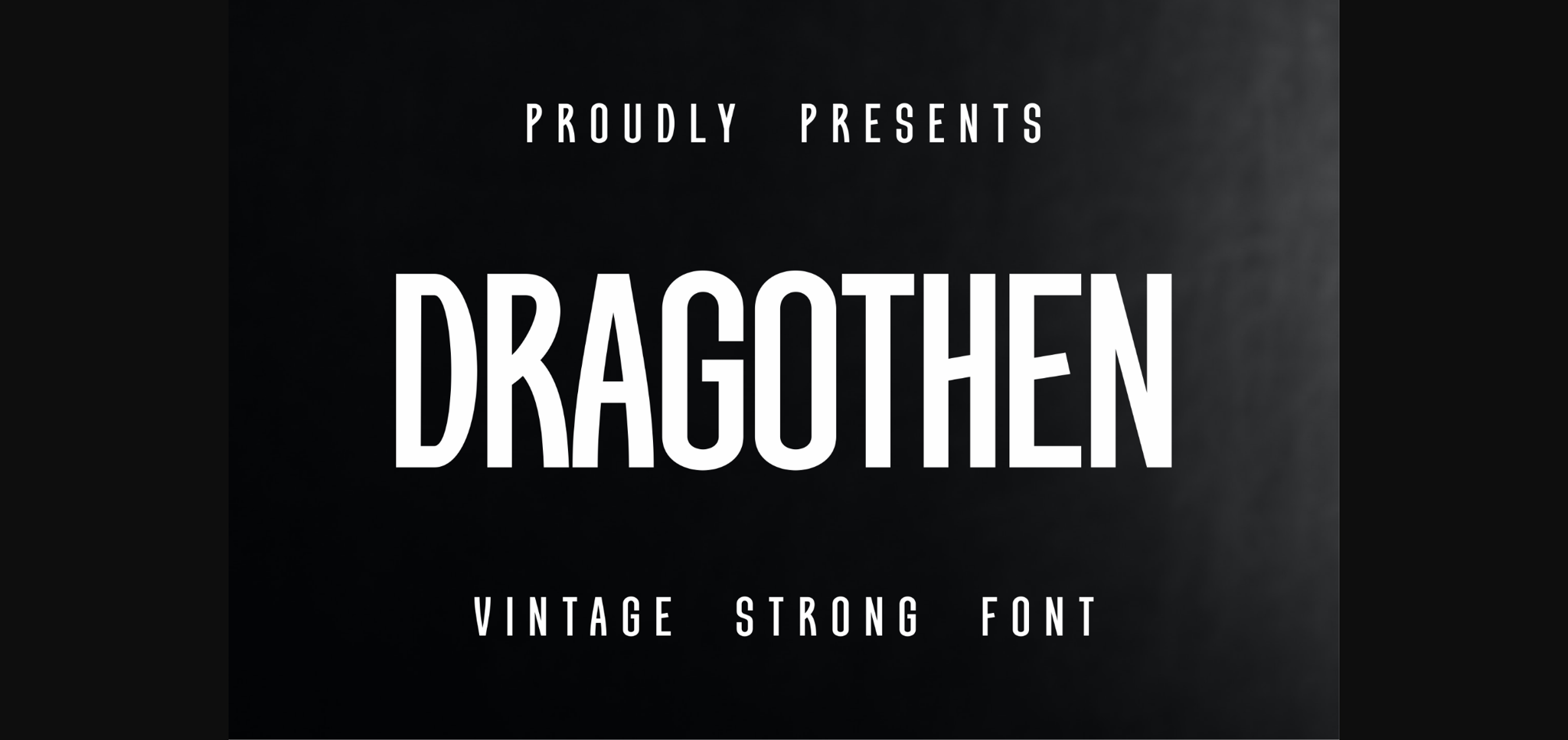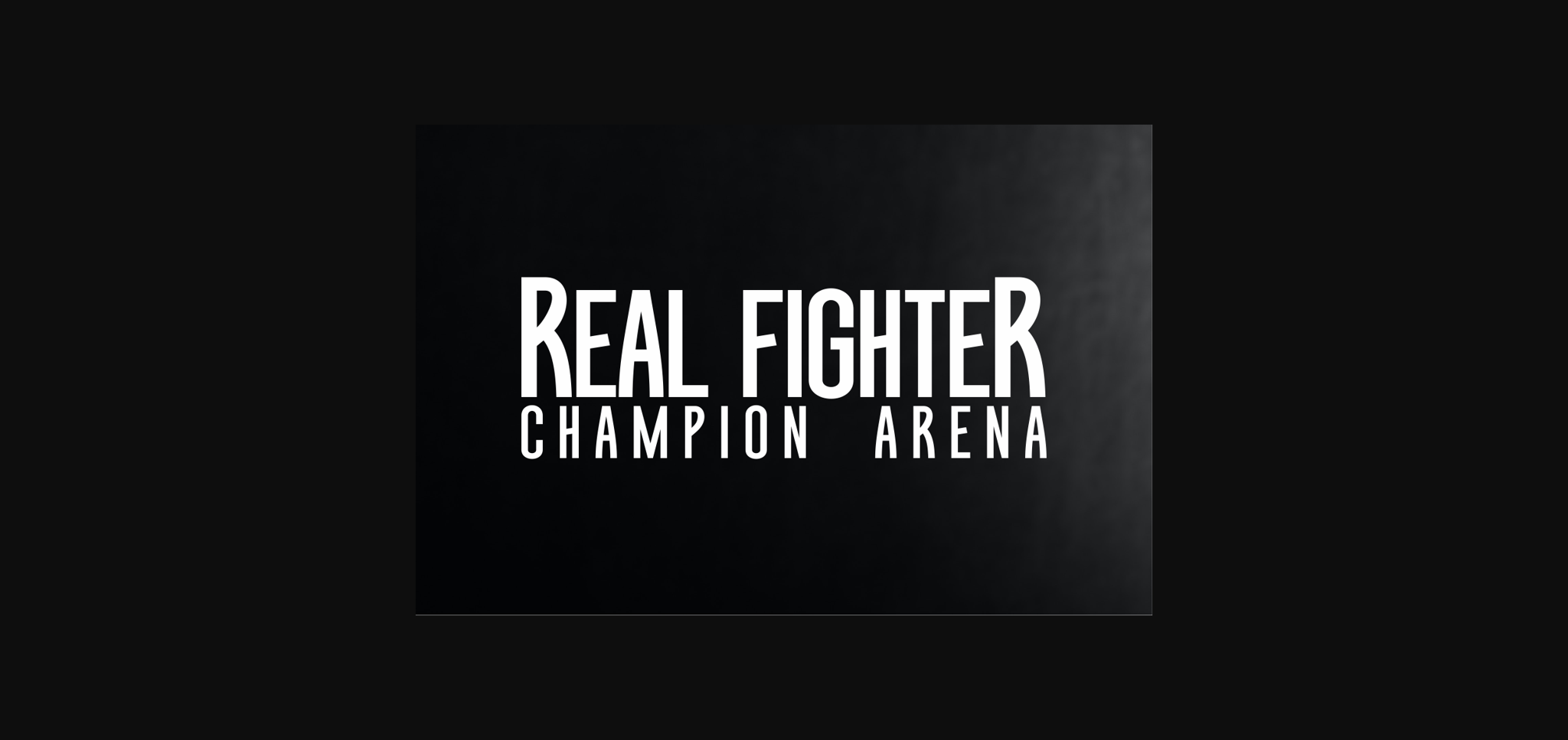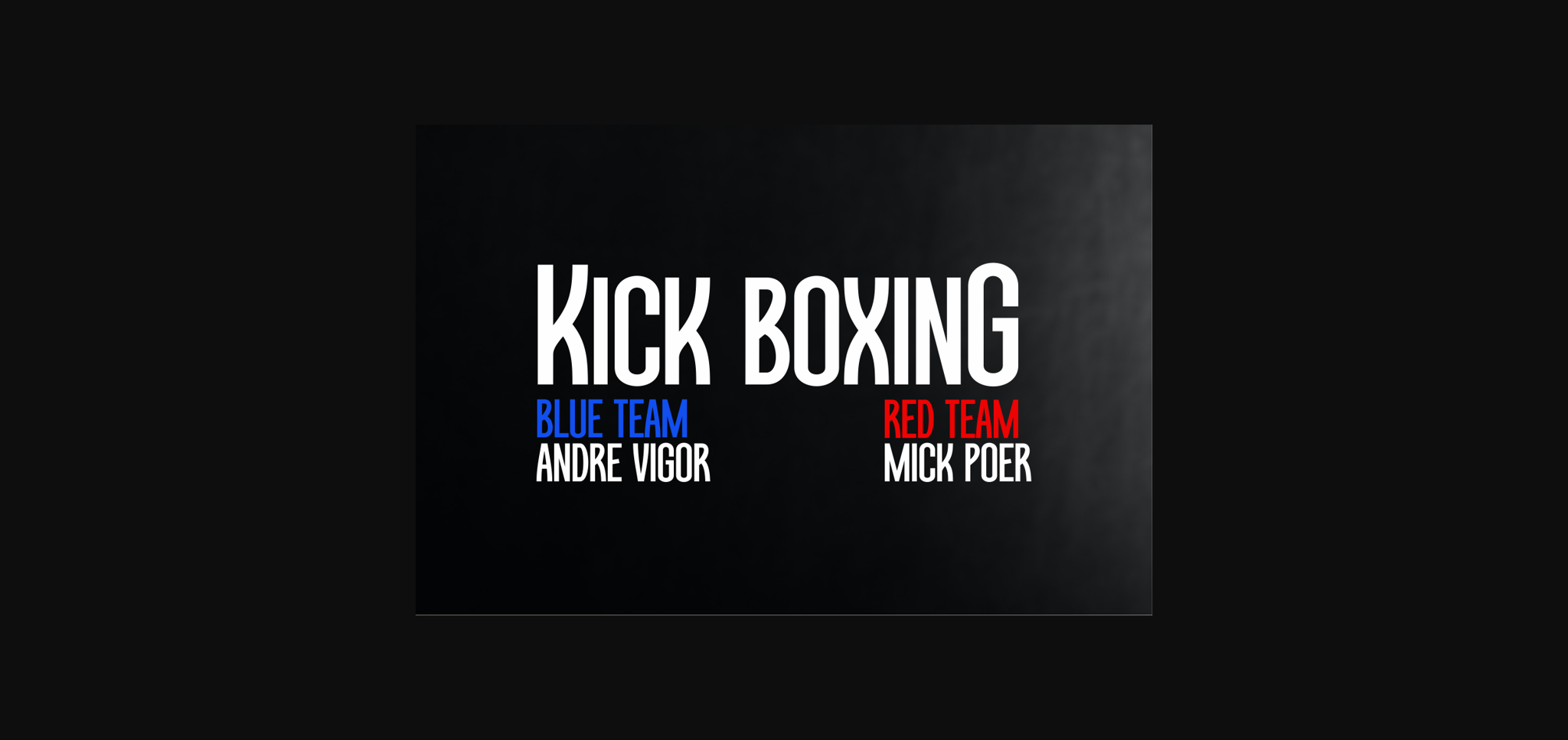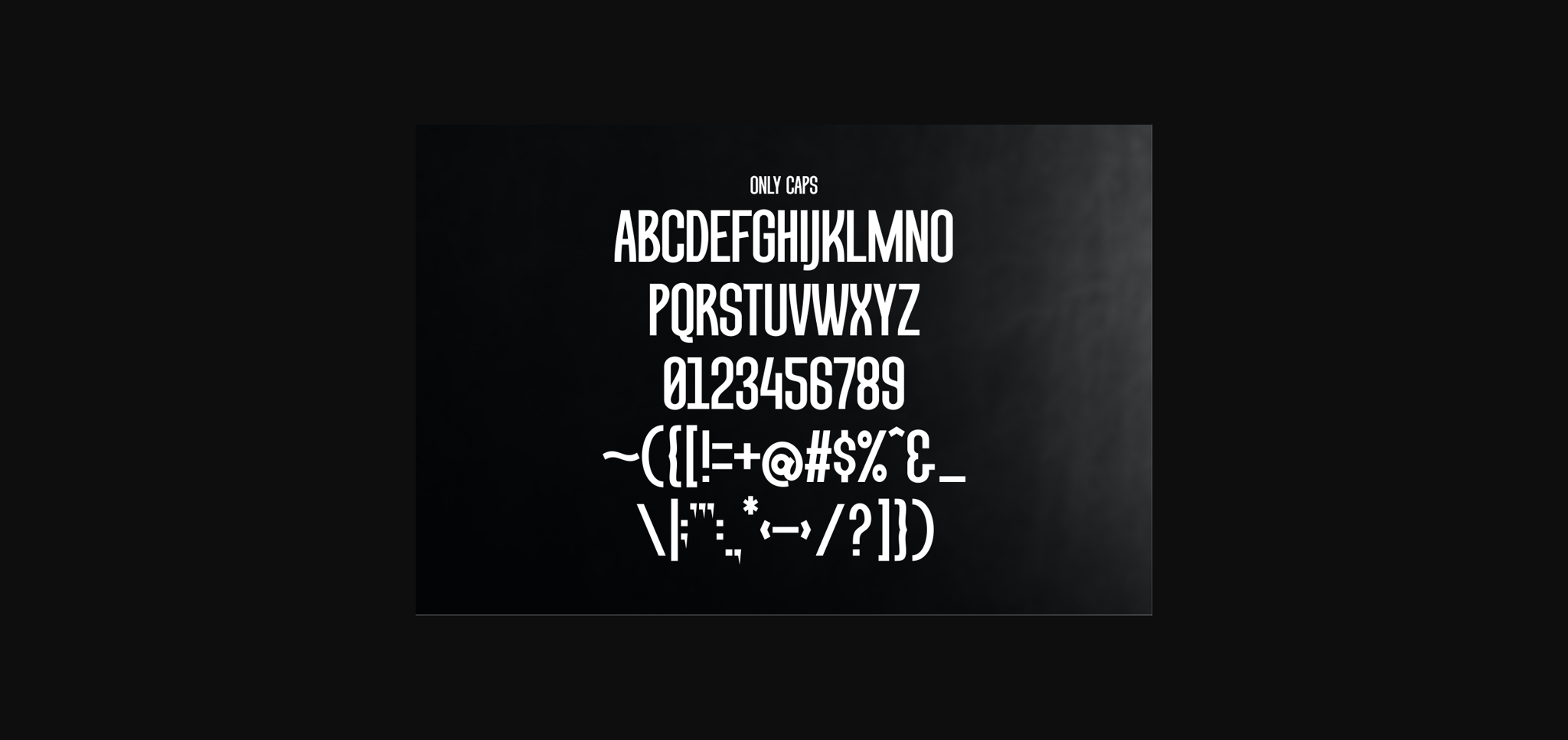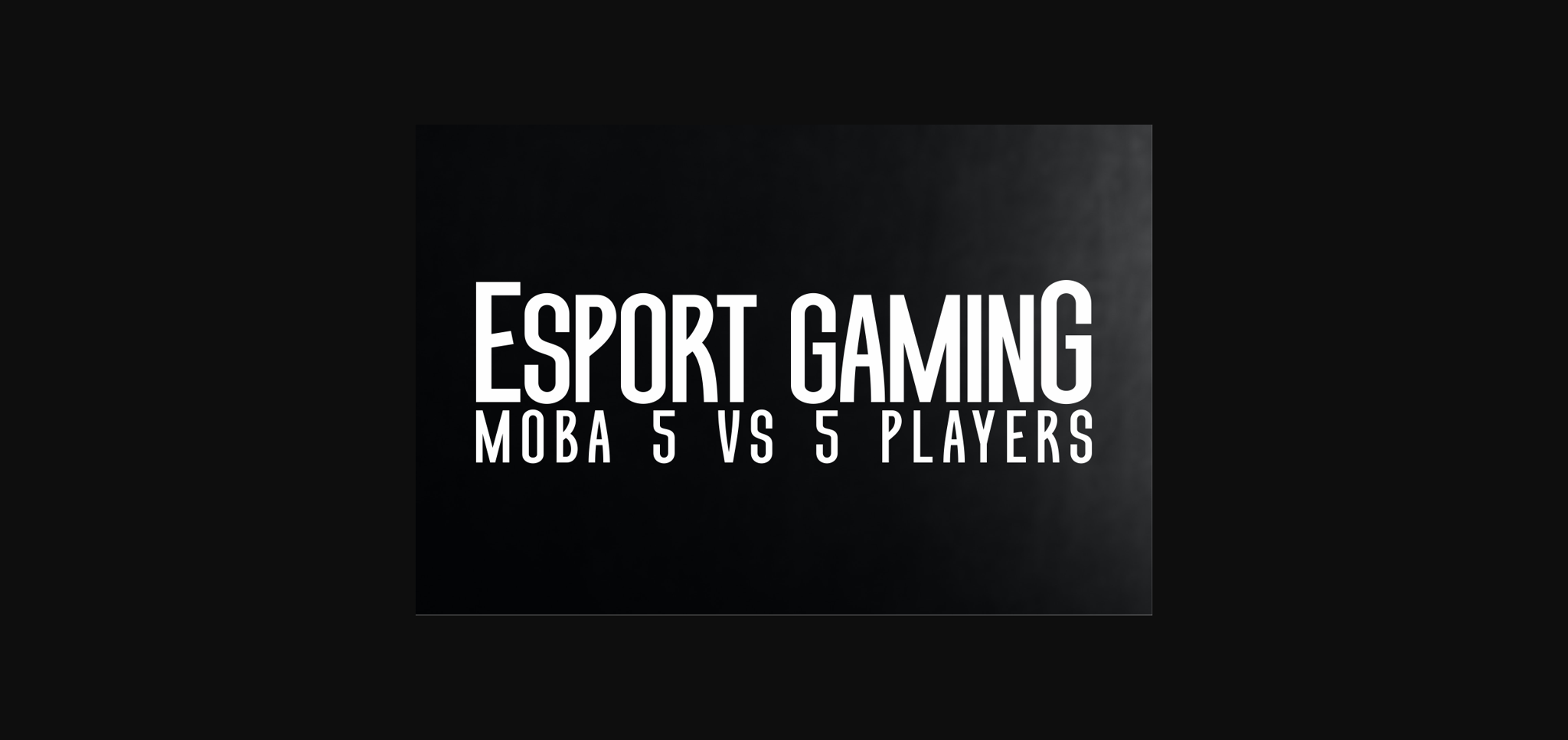
HomeSans Serif FontsDragothen Font Sans Serif Fonts Dragothen Font FacebookXPinterestWhatsApp 1 of 7 ... Dragothen Font Poster 2... Dragothen Font Poster 3... Dragothen Font Poster 4... Dragothen Font Poster 5... Dragothen Font Poster 6... Dragothen Font Poster 7... About Dragothen Font fDragothen is a bold and assertive sans serif font, perfect fot competition arenas ranging from e-sports gaming, real fighter, champion, wrestling, and anything related to competition. DOWNLOAD NOW People also explored Ampere Font Rebo Font Racutens Font The Beach Font The Love Arately Font Butterfly Monogram Font Color Charcoal Font De Facto Zamosc Font 306 0 TagsDragothen Font Previous articleRecone FontNext articleHirdeu Font LEAVE A REPLY Cancel reply Comment: Please enter your comment! Name:* Please enter your name here Email:* You have entered an incorrect email address! Please enter your email address here Website: Save my name, email, and website in this browser for the next time I comment. Personal Use Free Christmas Diary Personal Use Free Read more about this font Morning Miow Personal Use Free Read more about this font 1313 Mockingbird Lane Personal Use Free Read more about this font Rise of Kingdom Personal Use Free Read more about this font BLOG Fonts That Capture the Spirit of New York City New York City is more than just a place—it’s an experience, a rhythm, a visual language... Top 10 Handwritten Fonts That Elevate Your Designs Elegant Wedding Invitation Fonts – Handwritten & Script Fonts 5 Fonts That Will Dominate Design Trends in 2026